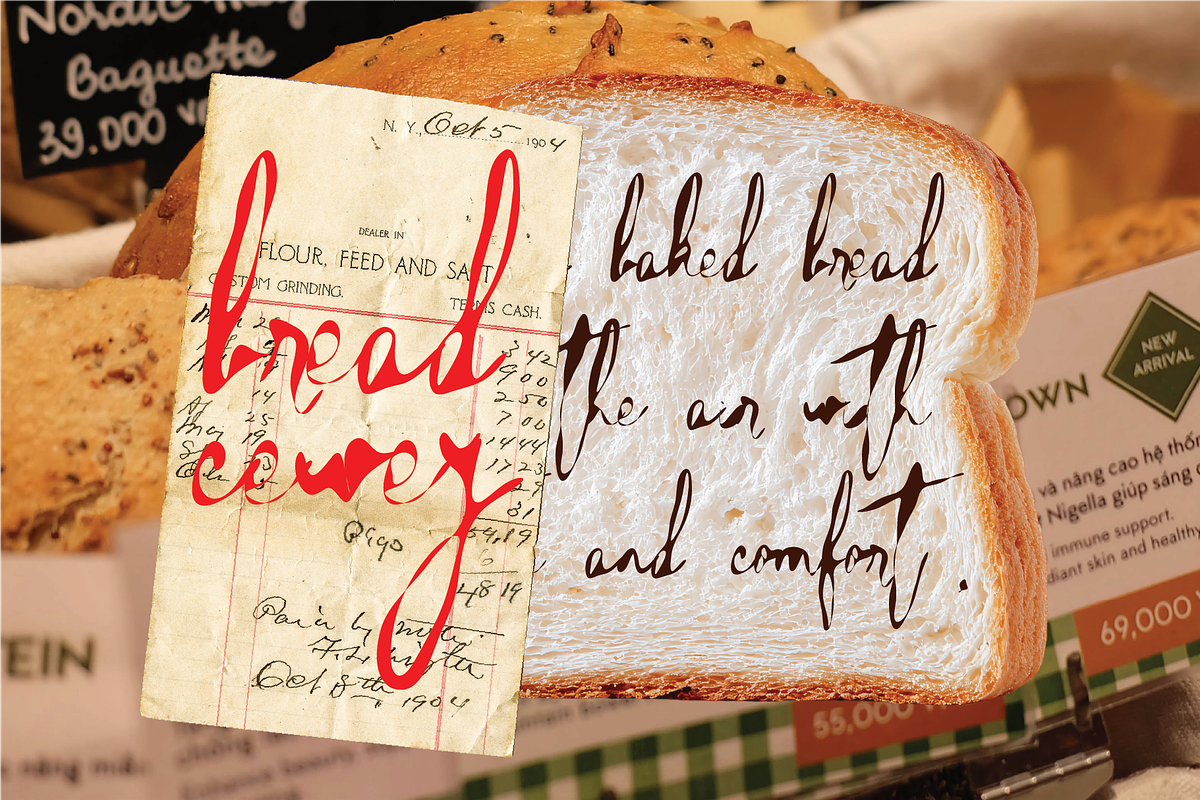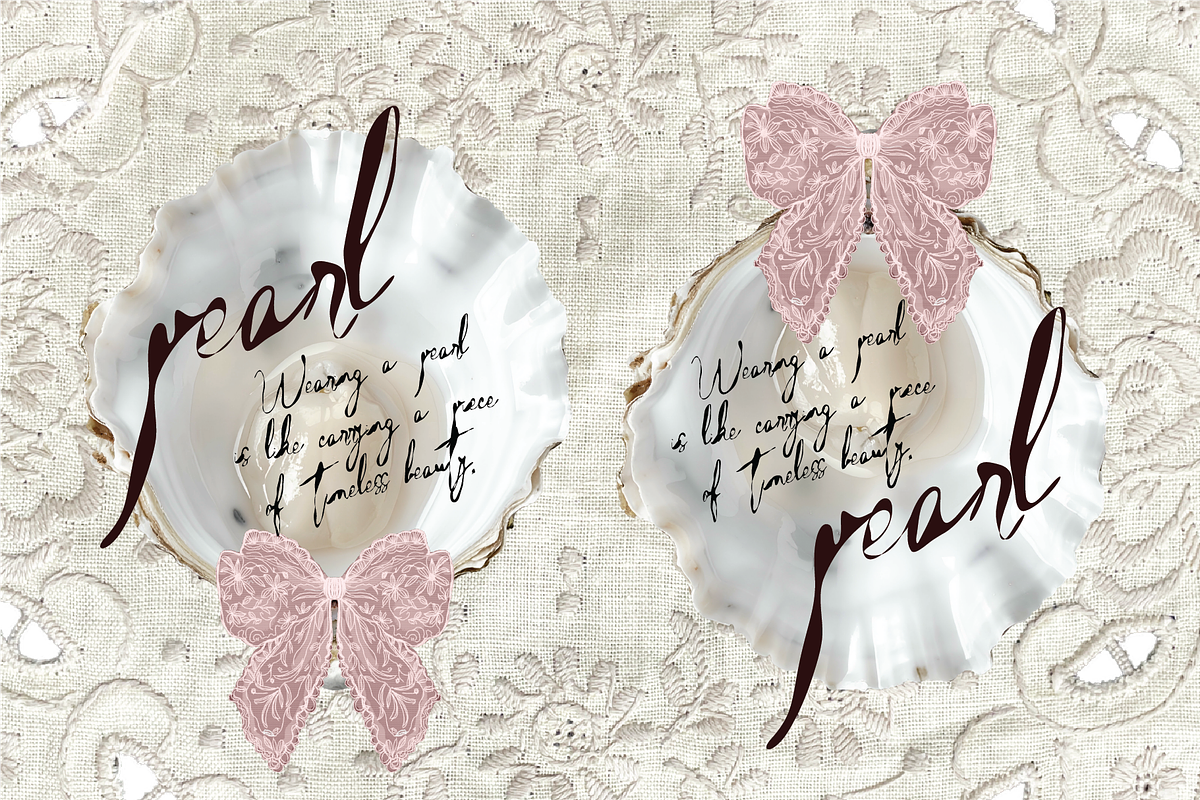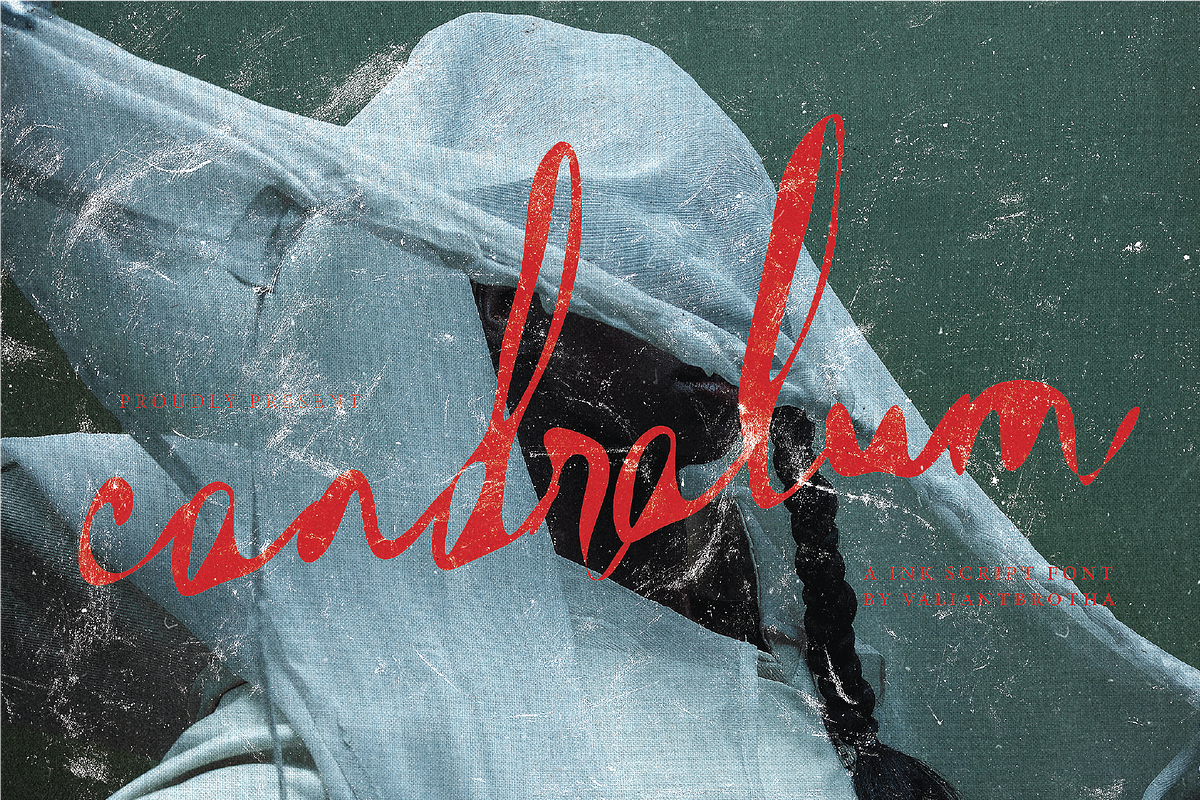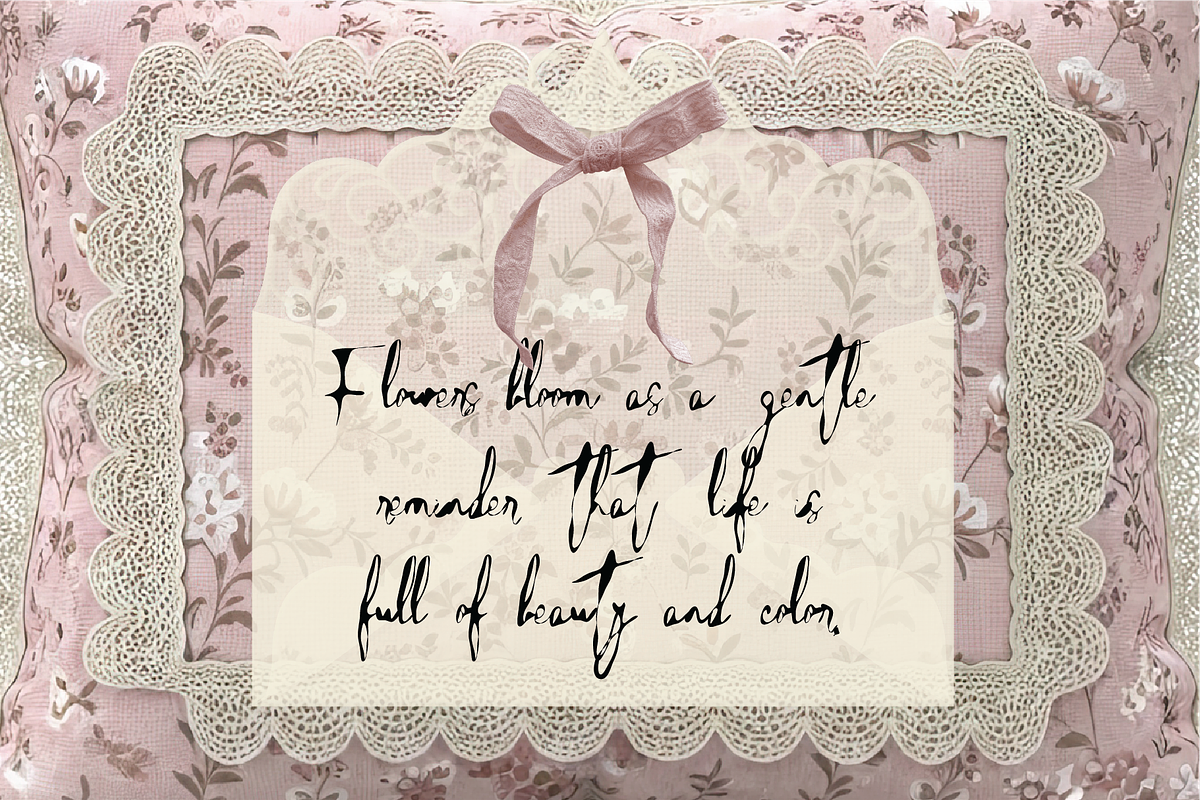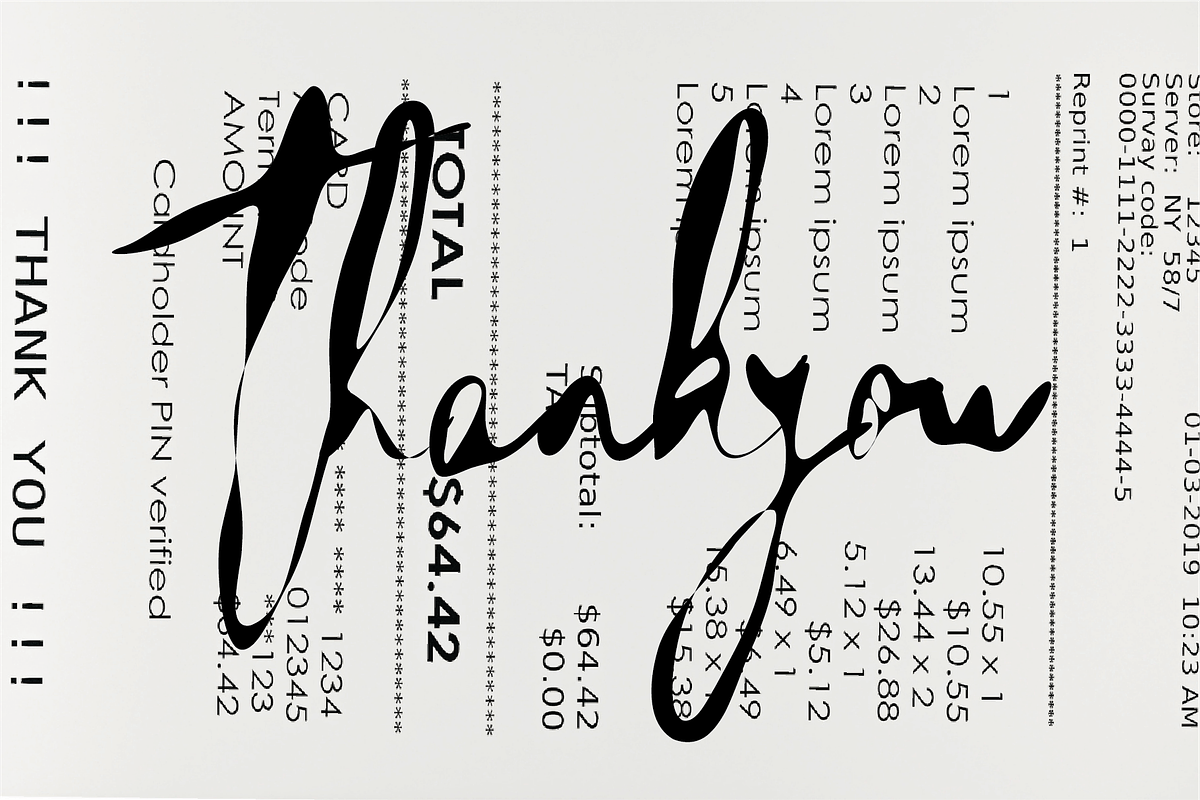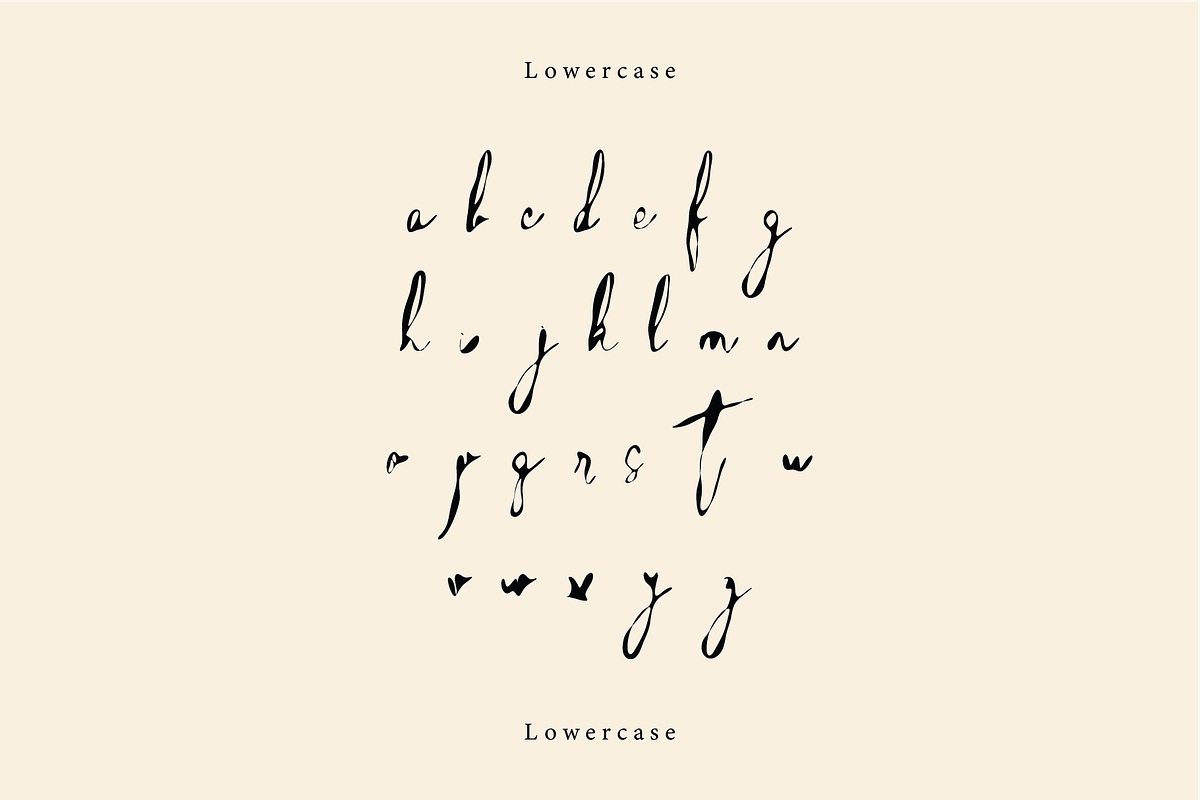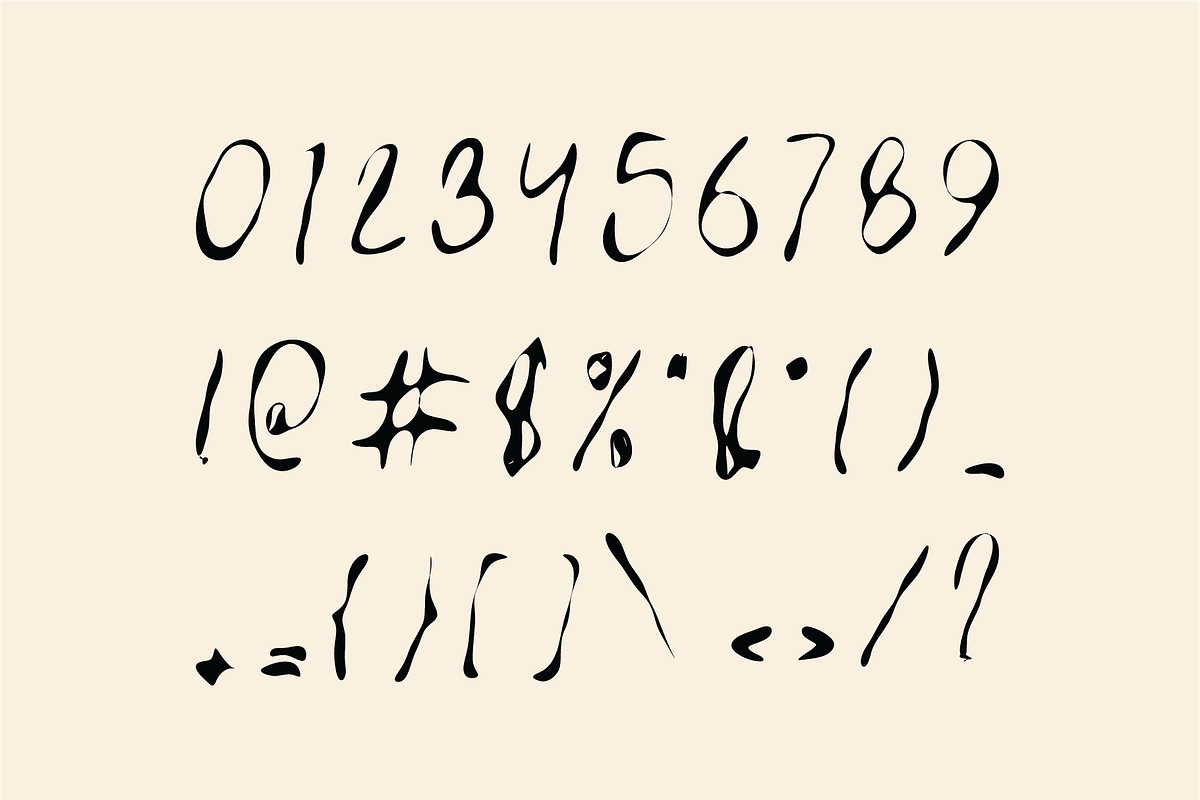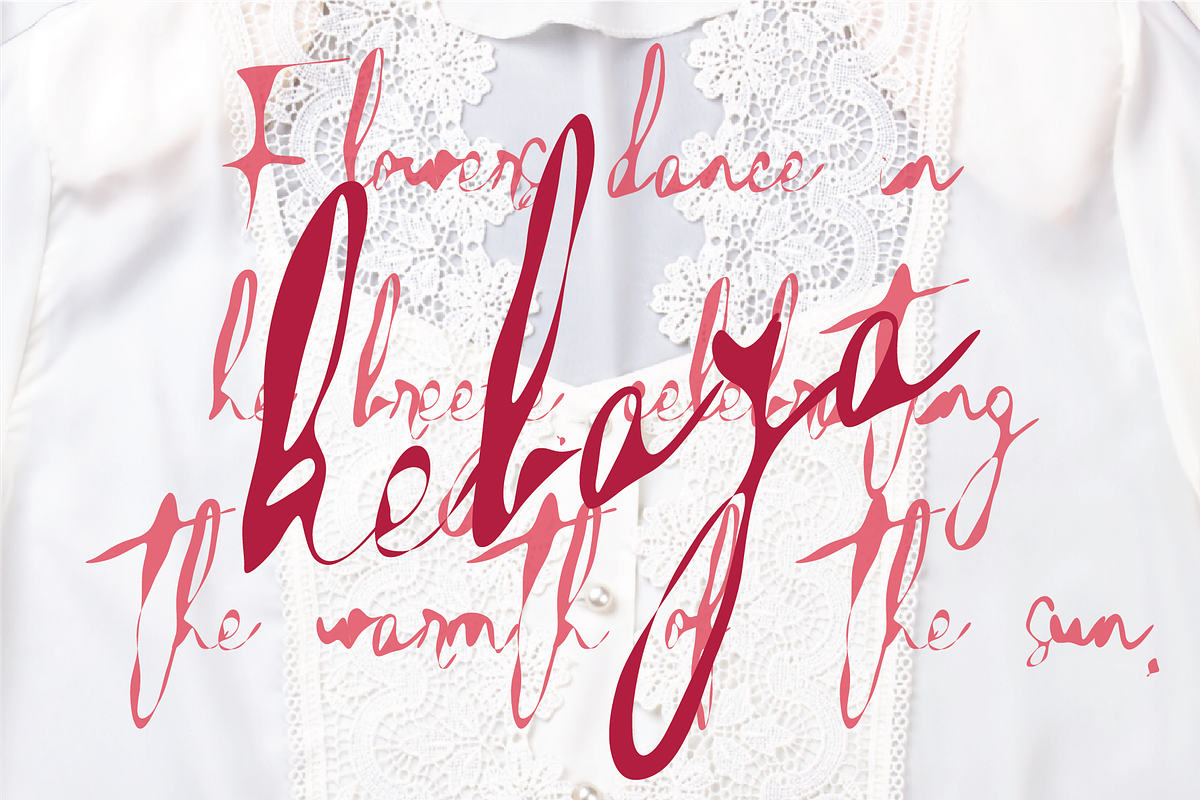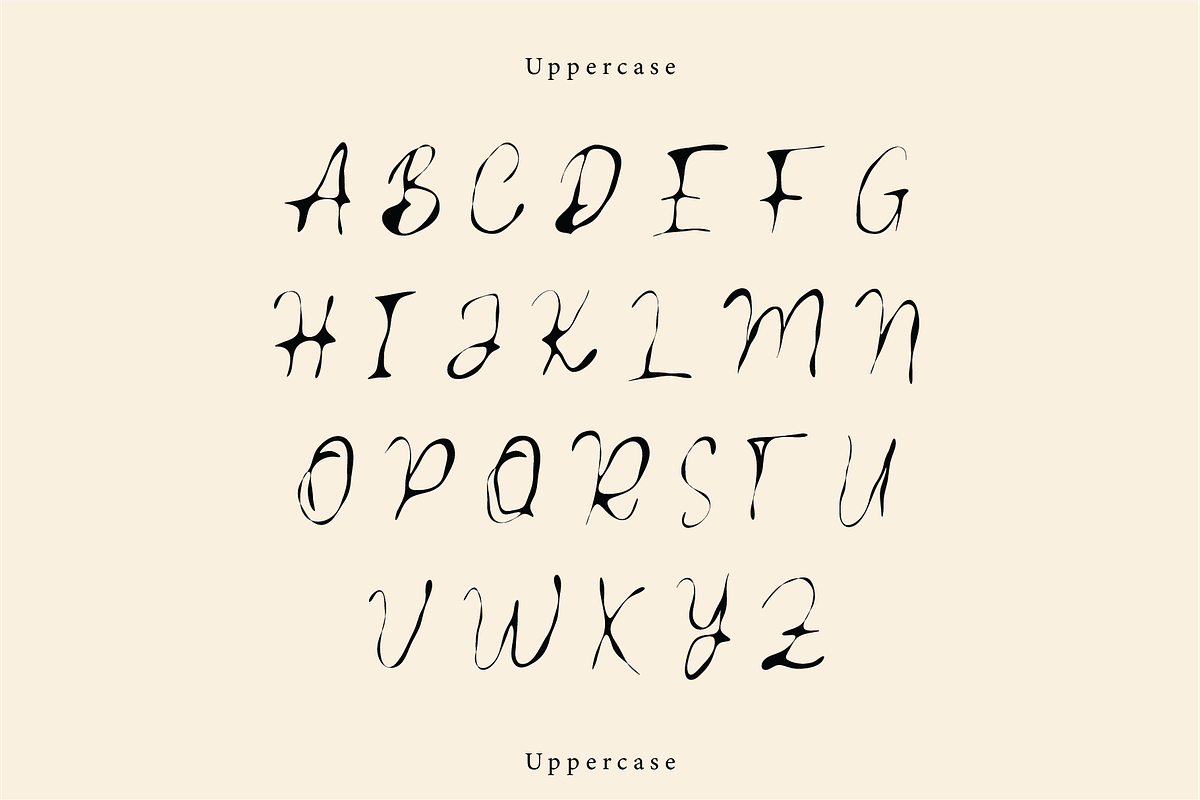
Candralum | A Ink Script Font
Candralum is a flowing and sophisticated script font designed for feminine and girly aesthetics. Its smooth, handcrafted curves give a romantic and delicate feel, making it perfect for invitations, branding, social media designs, and creative projects.
Numbers, marks and symbols